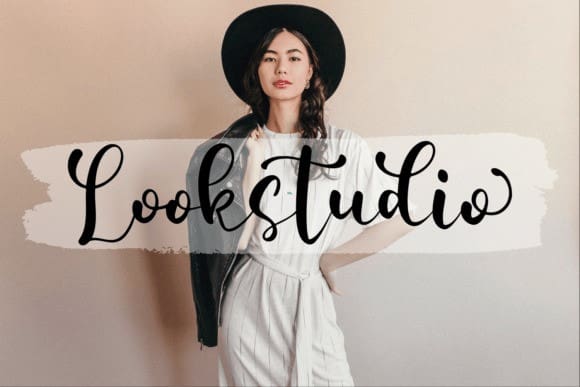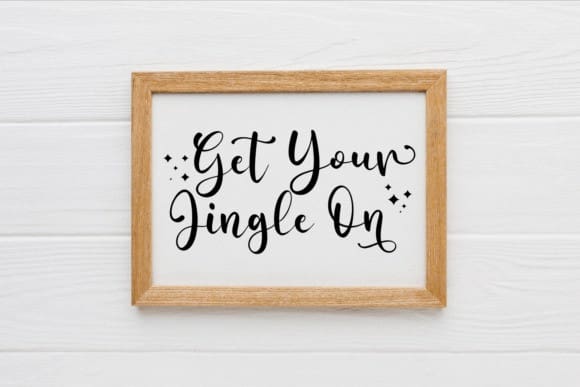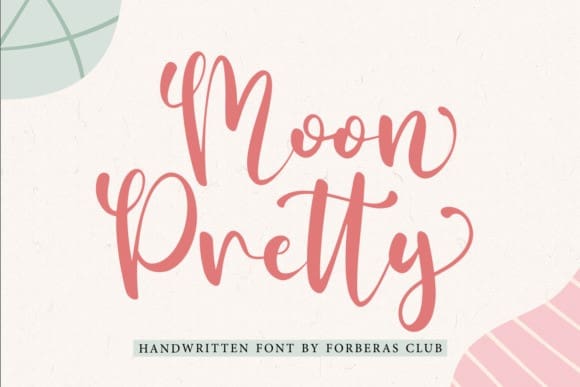
Moon Pretty Font
Moon Pretty Font is a flowing handwritten script font, described by an elegant touch, perfect for your favorite projects. Fall in love with its incredibly distinct and timeless style and use it to create spectacular designs!